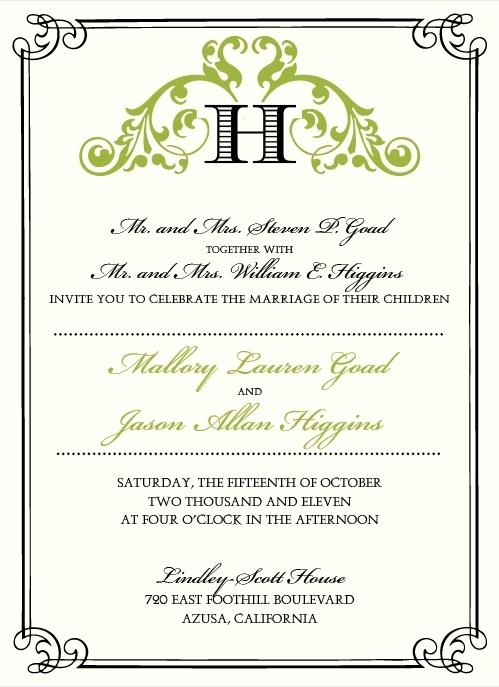
This is a great thread, i do graphic designer too and i have to admit my short coming is definitely font choice. The examples here are great I think i may redo the font on my invites. Thanks for the inspiration
Right now I am using Abbeyline and GilSans MT. Any suggestions for a good text font to go with the Abbeyline?
I need some font help!
These are some texts used in a bunch of invites I am in love with and would like ot play with these fonts to create my DIY invites, but I need help identifying them. I'm not sure if I can get them for free, or if I have to pay. If I can't get them for free does anyone know of any similar ones I can get from somewhere like dafont??
I'm looking for both of these fonts in this pic (or similar):
The purple font in this pic:
And the black font in this pic:
@thatelisagirl: The top two examples are both commercial fonts, but for a similar look try Pointedly Mad, De Louisville and Helldorado from dafont (or check out their Western fonts category for more ideas). The last one is Copperplate, which is also commercial, but it might have come bundled with your system.
Thanks!! Do you know what the grey font is in the first picture? And yay! Copperplate comes with Microsoft Office.
A really great front that I am planning on using is called Miss LeGatees. (Its a script font). I totally love it but haven't quite which font to use with it, i am thinking a serif font. Anyone have any ideas?
@thatelisagirl: Oh, sorry, I didn't notice that you were looking for the grey script as well! That's a commercial font as well (Coronet), but there's a similar freebie by the name of Ohio Script.
Can someone help me find a font similar to the one the names are in in this invite?? I'm in love with it but haven't able to find anything similar. THANKS!
So glad I found this post. I have my invites ready to print and had used Edwardian Script for the whole thing. Is using one font a huge no-no? I see the pairings earlier posted and like Futura Blk front. What parts should I keep Edwardian (just our names and the "reception to follow?). Ugh, now I'm even more indecisive!
@kittieswed use a serif font with your script, not gilsans. or you could stick with gil, but bump down the size and no oblique/italic and no cap on the first letter of the word either. perhaps go with a darker gray, rather than black.
@milesbella: Using just one font is totally acceptable. It would be very elegant and classic, but I like keeping just the names and reception information in a script also.
I'm torn on mine can't decide if I want all script or not.
I love this topic so much! I want to recommend Antrokas for anyone looking for a free, whimsical script font. So pretty! I'm thinking about DIYing my calligraphy with something similar to this. I am so in love with Primele's style but won't be able to afford it.
@kirabee: OMG you just saved my life. I've been wanting to do the "print on envelopes, trace with pen" thing, and this looks JUST like Primele's style! (Luff her though - but all I can afford is an address stamp)
Noodle - Yay!! I hope it works out for you, I was honestly surprised to find that font for free because it's so pretty!
I am so glad I found this thread! It has been very informative :-). Thank you so much everyone!
Oh how I love that Weddingbee provided me this post from a year ago.
You ladies are truly a wealth of information! Thank you!
Does anyone know what the script font in this is?!!? Please help!!
Thank you so much for all of this. This single post will save me days of work!
@jennalee333: It's a commercial font called P22 Cezanne Regular. I purchased it for $20 on the following website:
http://new.myfonts.com/fonts/p22/cezanne/
Hope this helps :)
I know this is an old thread, but I am so glad I found it!!!! Holy font information! Awesome!!!
Hi Bees,
Anyone know what the black font is? I really want to use it for my wedding stationary.
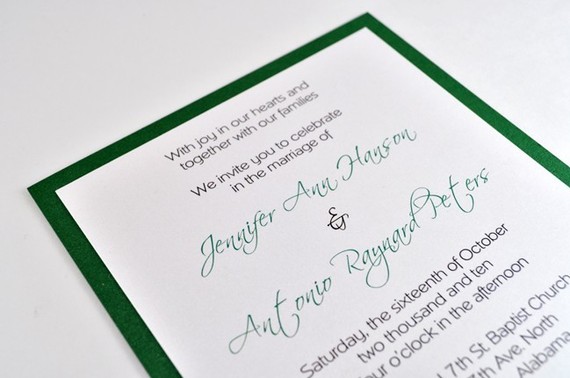
Thanks so much!!
Can anyone give a good alternative to Mrs Eaves?
It was used in our Invitation suite and I'd love to use it on our programs but I can't justify spending 60+ for it. Same goes for Burgues (though I'm considering using Jane Austen instead for that.)